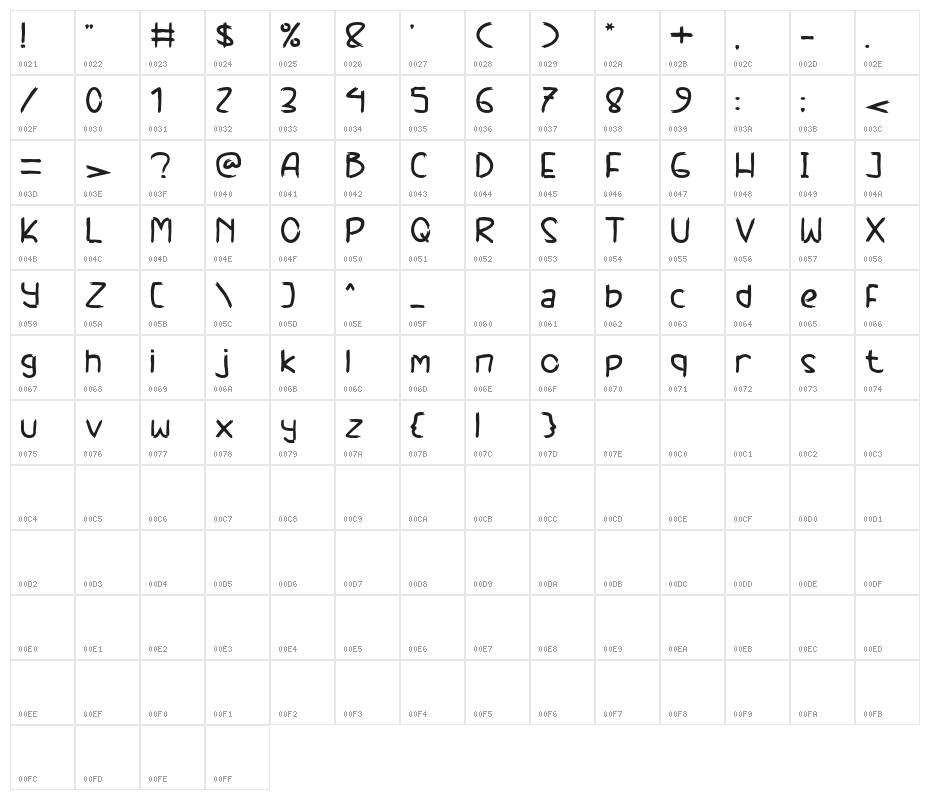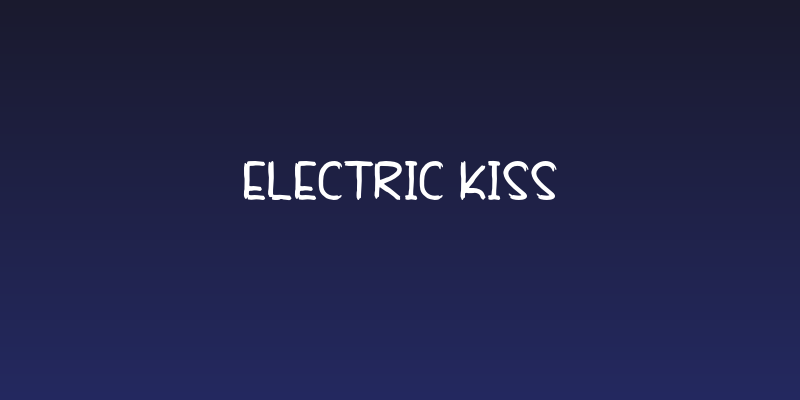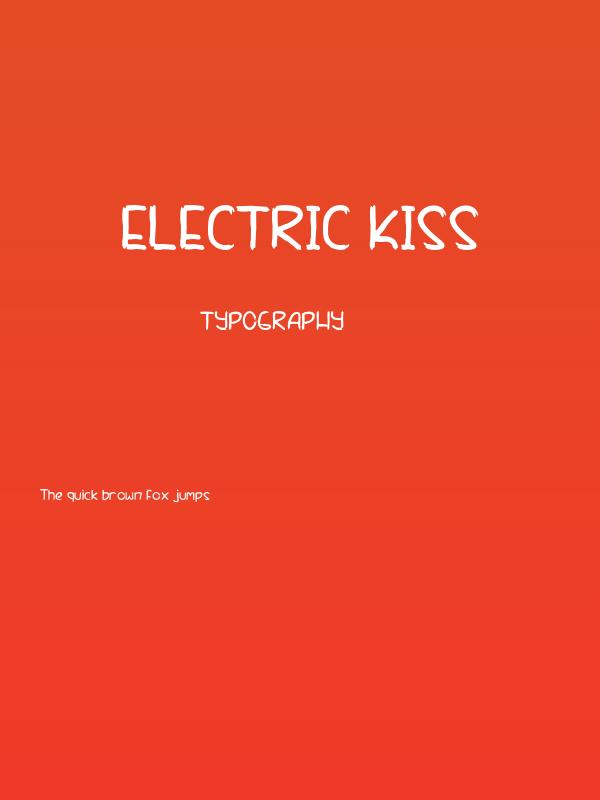
Electric Kiss Font
Electric Kiss Description
This font features a bold and expressive handwritten style, characterized by its thick, uneven strokes and playful, energetic appearance. The letters have a slightly irregular form, adding to the casual and dynamic feel. The uppercase and lowercase letters are well-balanced, maintaining a consistent flow throughout the alphabet. Numbers and special characters are designed with the same lively touch, making them stand out. This font's unique style is perfect for projects that require a personal, informal touch, such as invitations, posters, or branding materials that aim to convey creativity and spontaneity.
| Proposed Projects | Ideal for creative projects like invitations, posters, and branding materials that require a personal touch. |